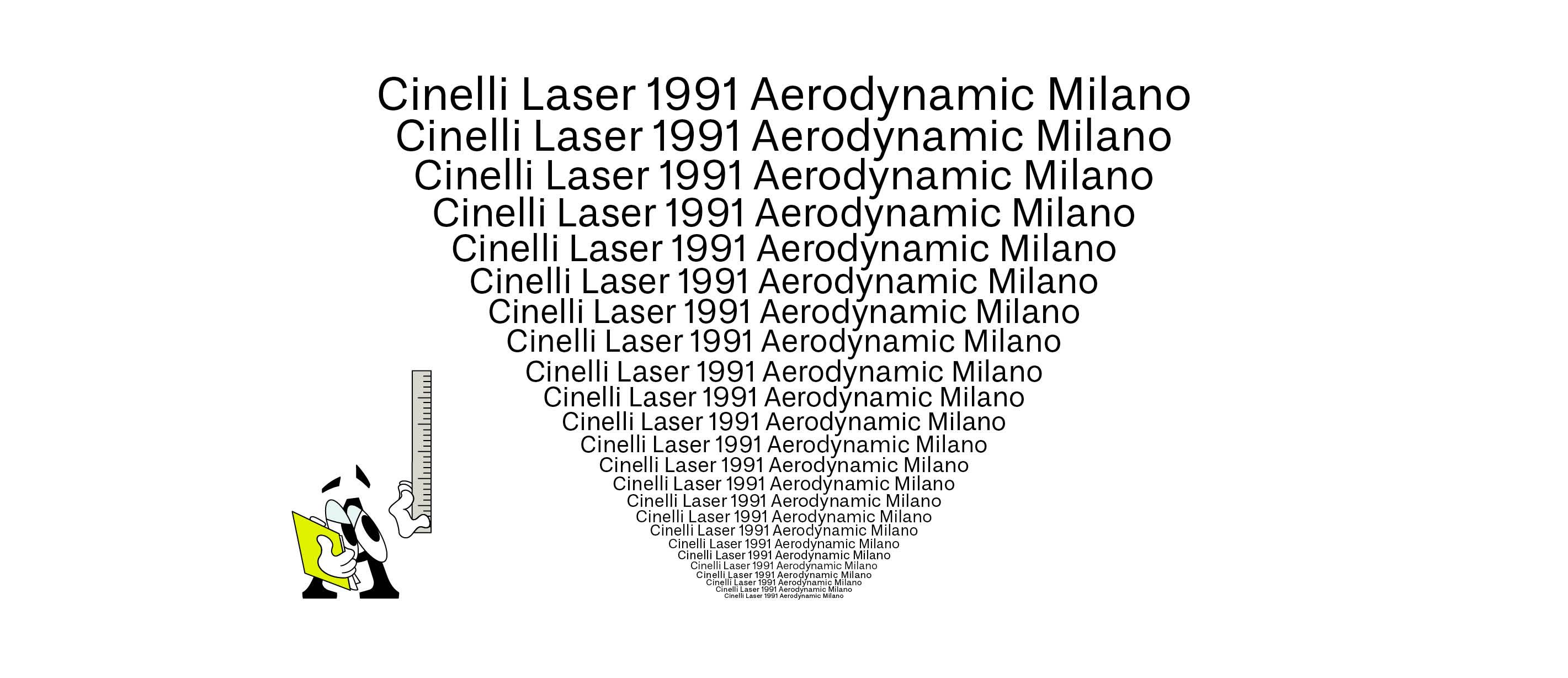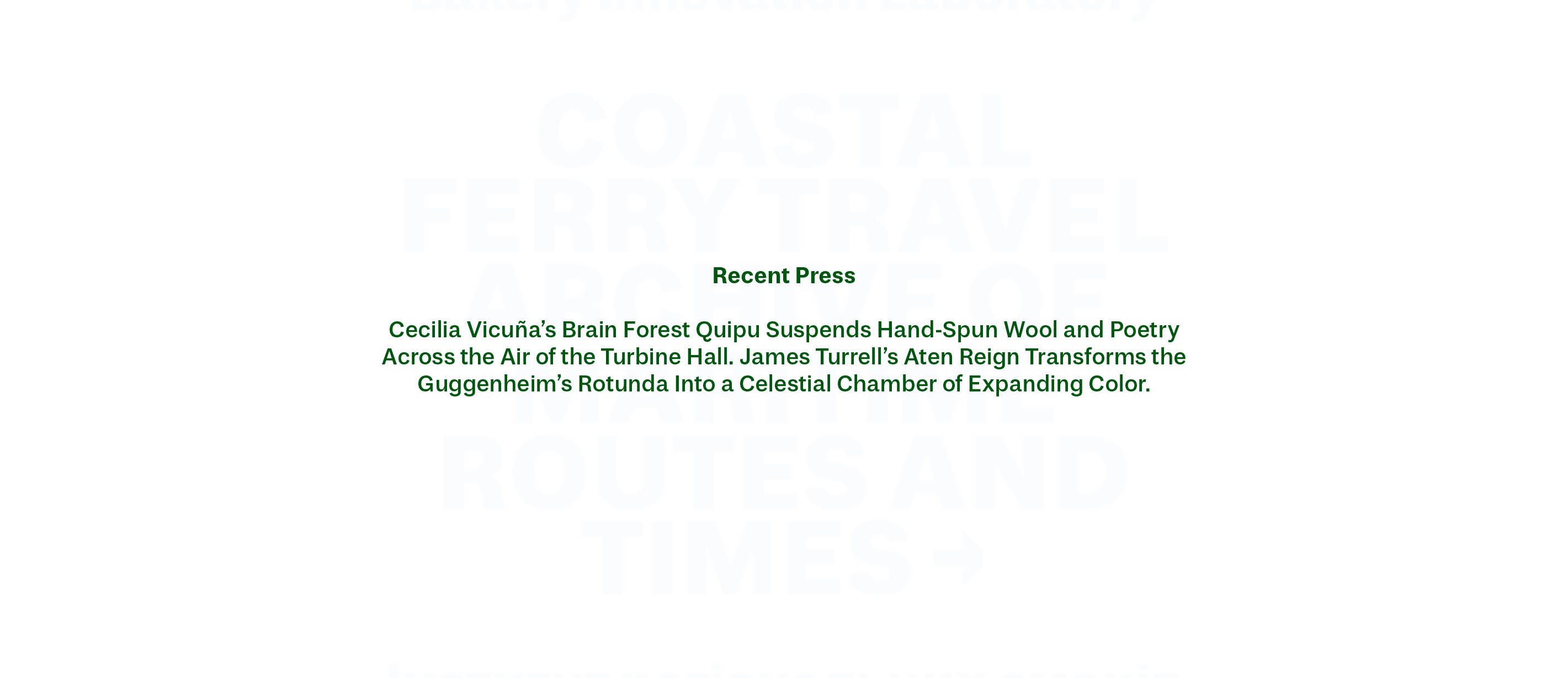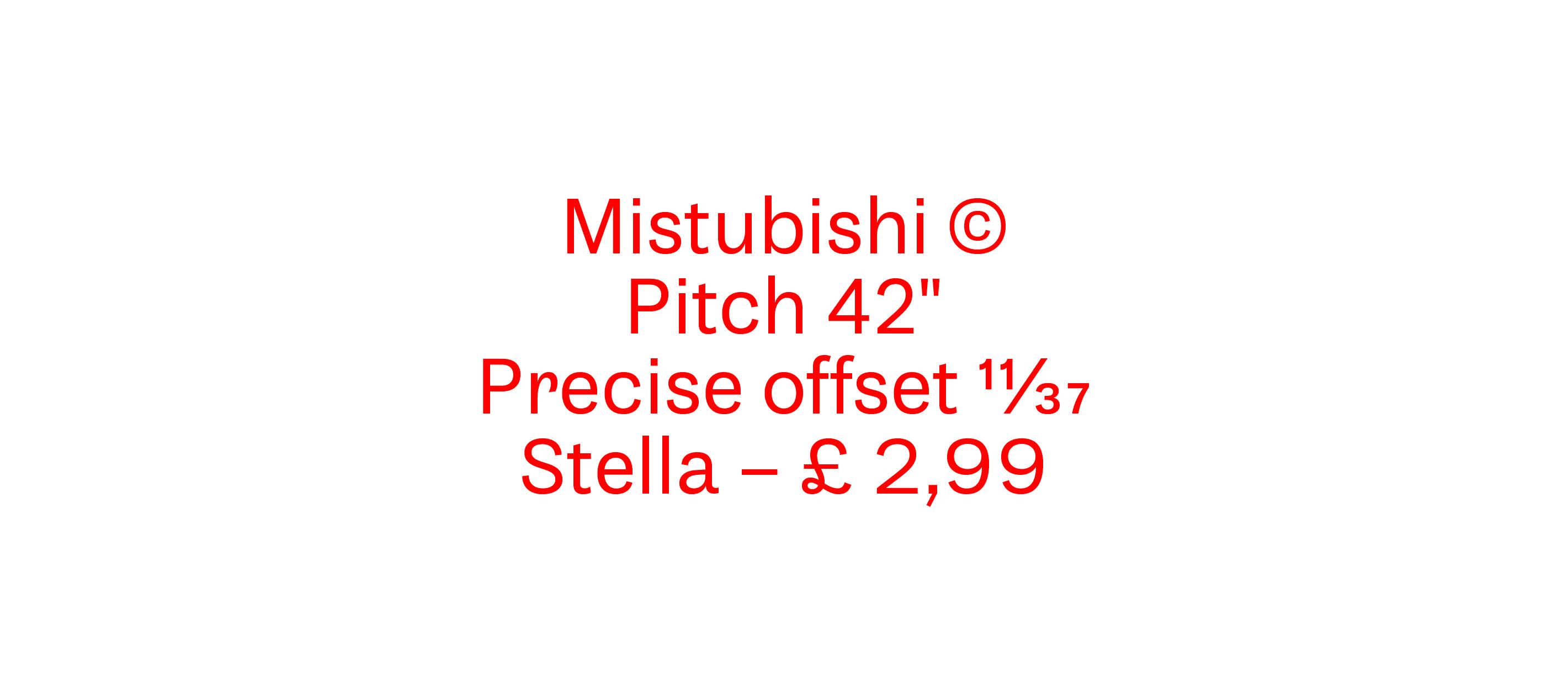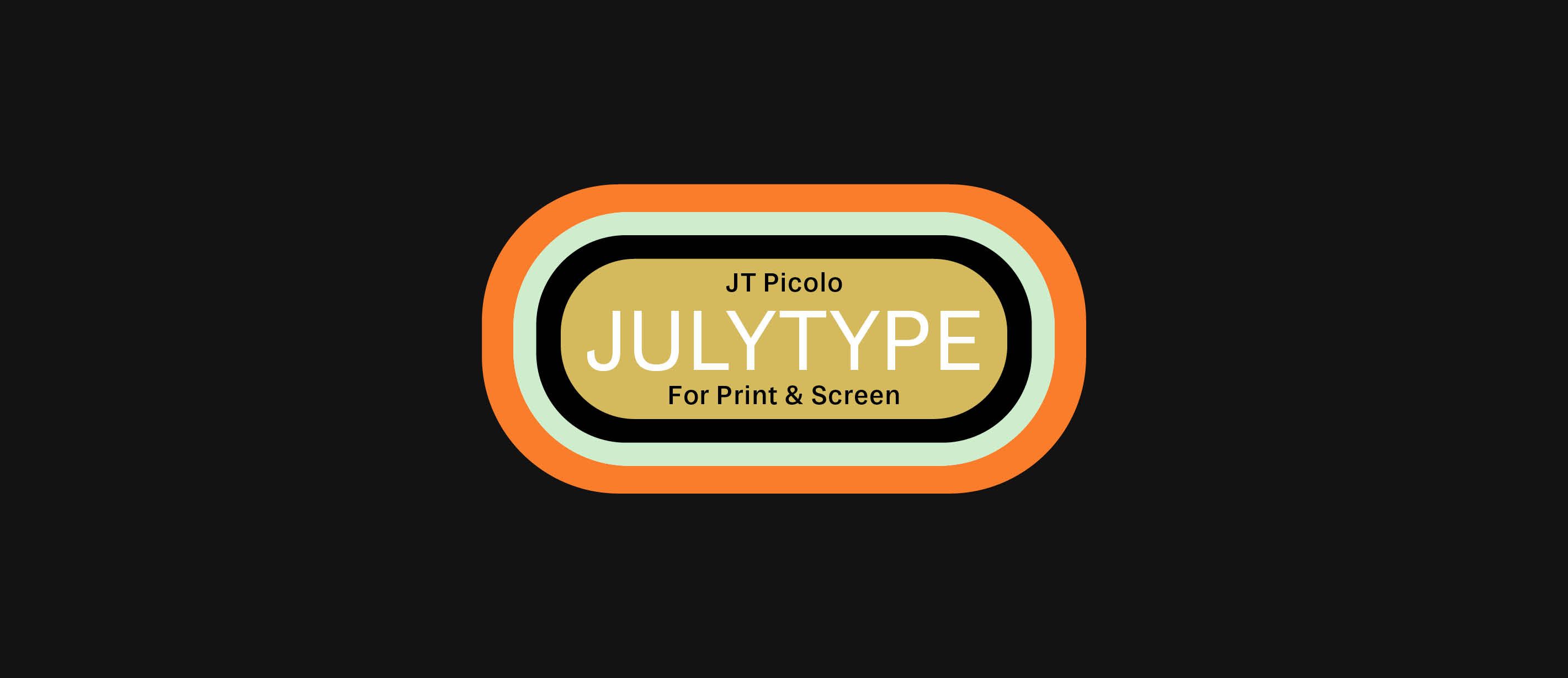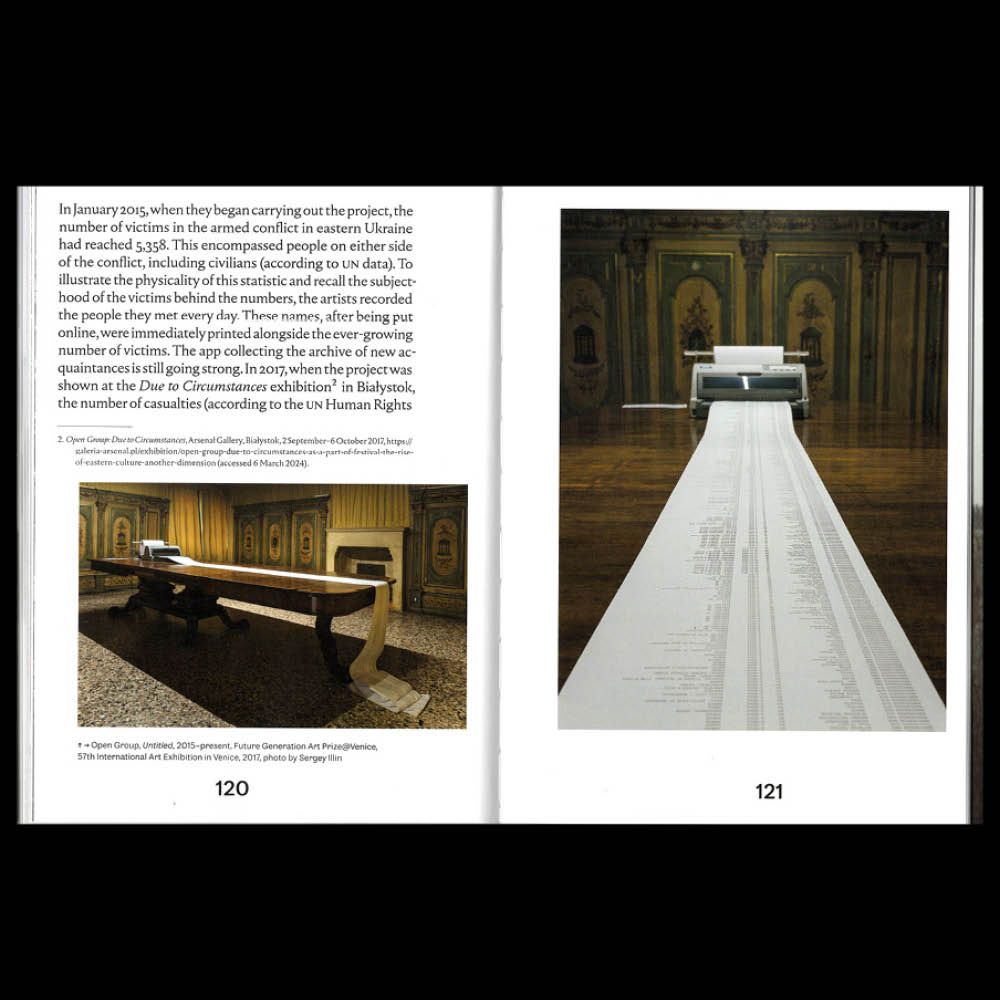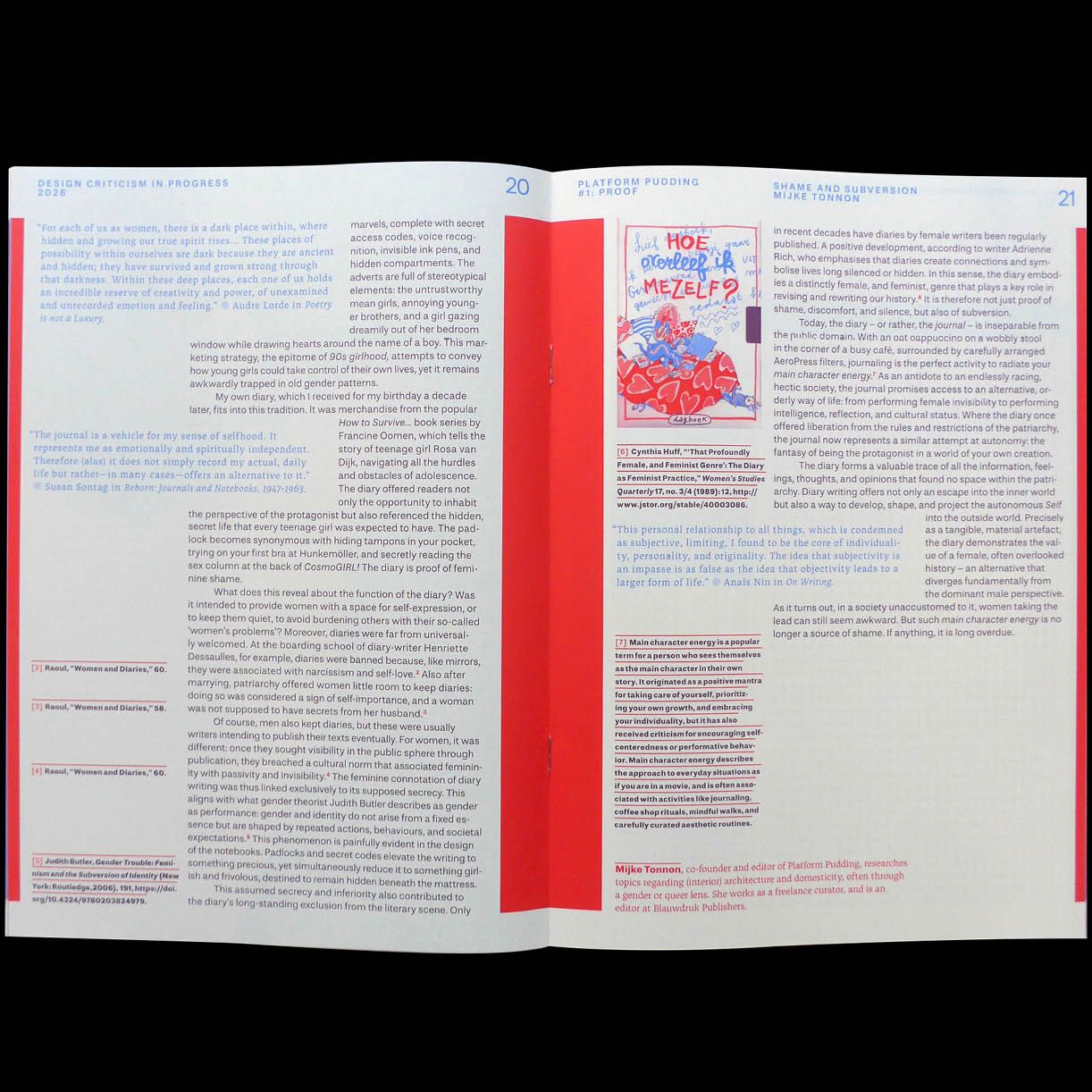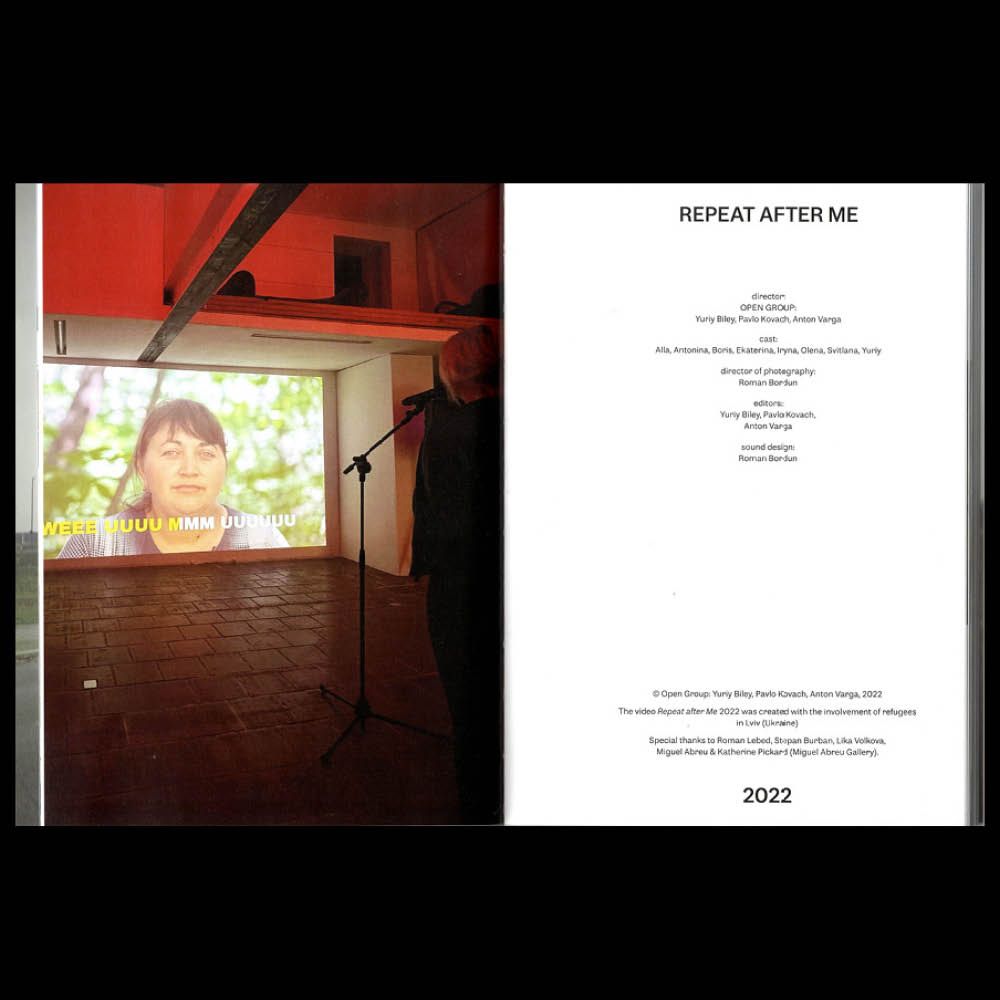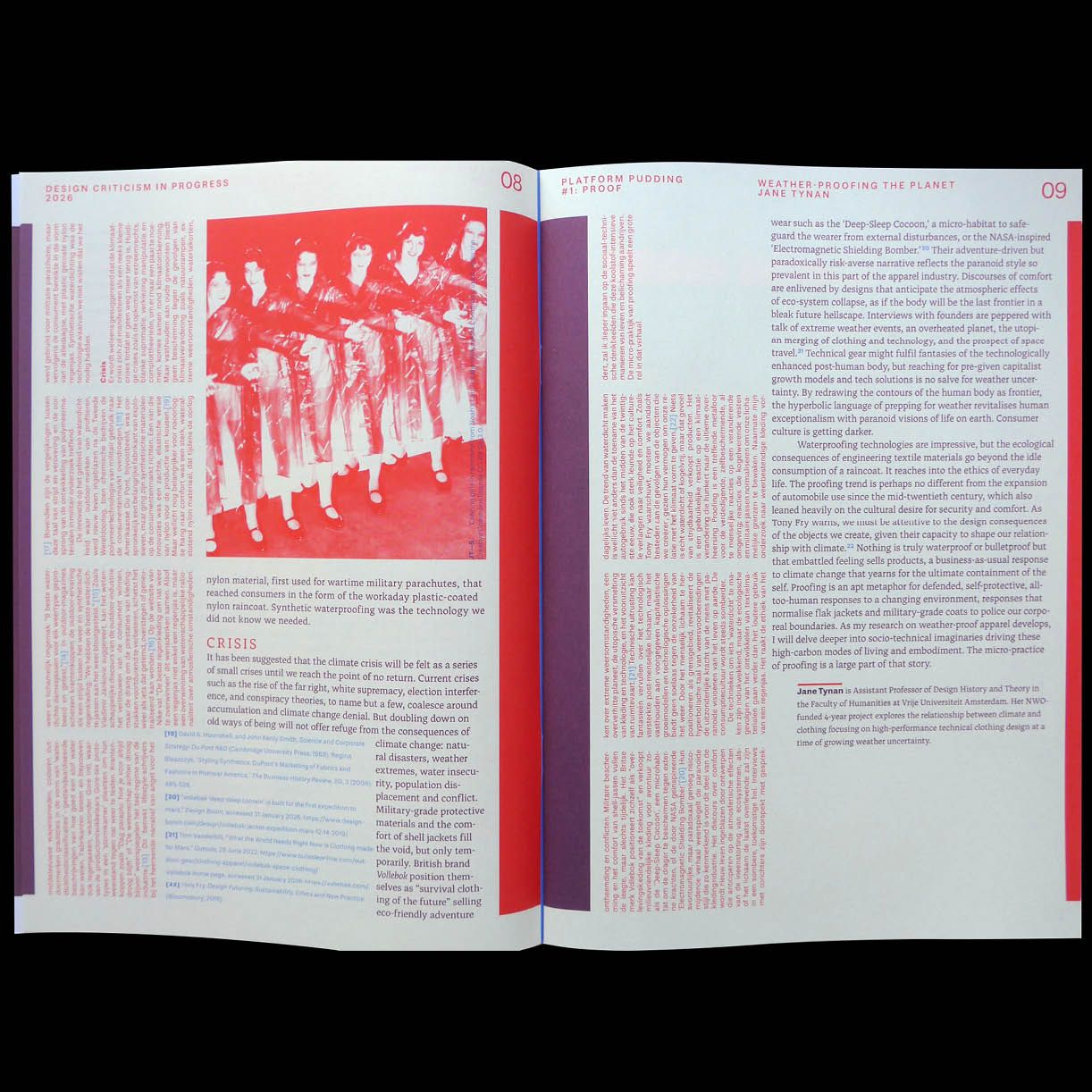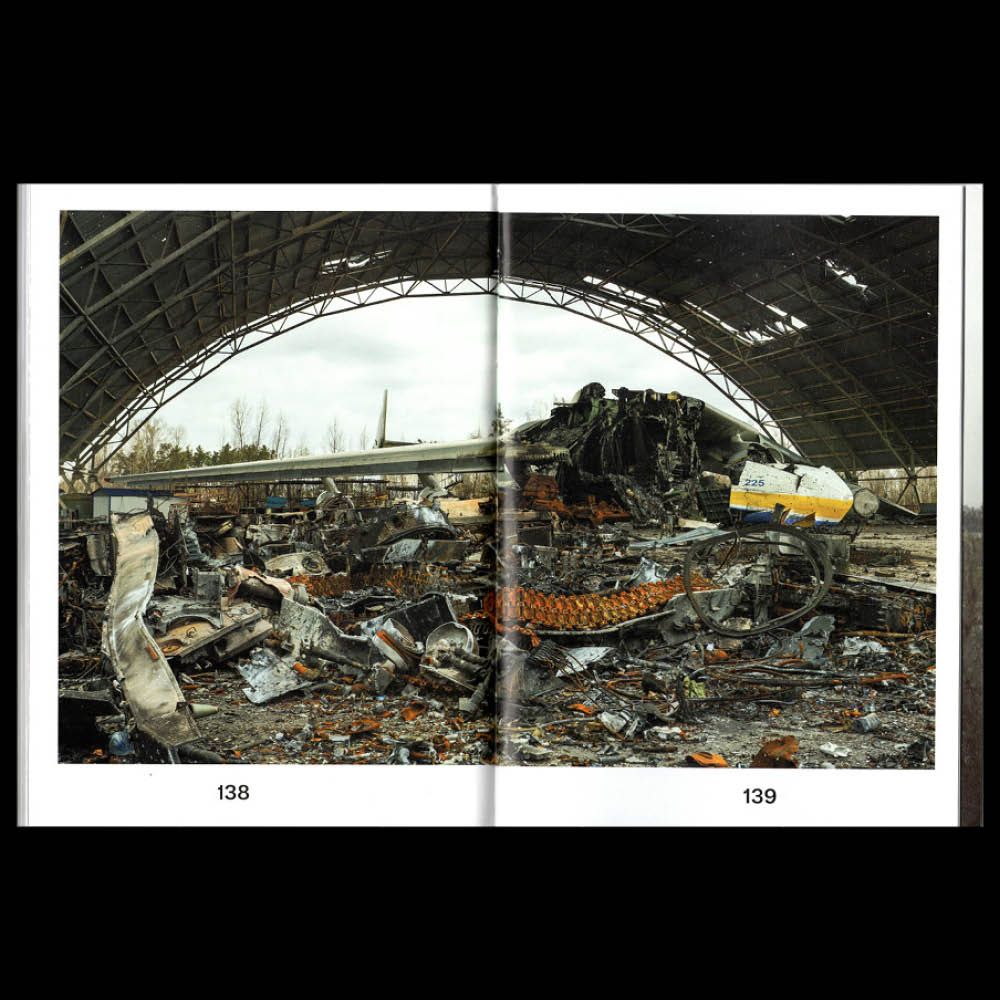
Repeat after Me II exhibition catalog, shown in the Polish Pavilion at the 60th International Art Exhibition, Venice Biennale in 2024. Design by Janek Bersz.
Platform Pudding Magazine by Kylièn Sarino Bergh
Poster for the exhibition by Fruzsina Kiss. Design by Stavros Gialamidis
Jt Picolo is a variable typeface that blends the elegance of 19th-century Grotesque typefaces with a contemporary touch. The research explored high-contrast Grotesque typefaces from the 19th century, with a focus on noteworthy examples like the Breede Grotesque from Van der Wiel & Hooijer te Arnhem in 1875 and its subsequent iteration by the Amsterdam-based type foundry, Tetterode. The design philosophy centers on blending historical references with contemporary solutions. For instance, in aspects such as letter proportions, including the height of the x-height, width, or terminal endings, we were curious about which references to retain or discard to transform Picolo into a dynamic and adaptable tool suitable for various applications. During the early stages of design, we retained numerous references to the sources.
Particularly, we cherished the lower-case double-story letters /g and /r, which stood out prominently. However, as these references proved most effective for display sizes, we moved historical references into alternates. If you desire a more playful version of Picolo, explore alternates in the OpenType features. Whether improving printed designs or fitting smoothly into digital spaces, it shows its practical strength and effectiveness in various design situations. The typeface extends its functionality by providing Cyrillic support, catering to a broader range of users. Simply put, Jt Picolo is a tribute to the timeless appeal of 19th-century Grotesque fonts, blending historical elegance with modern design needs. Its dedication to inclusivity is clear in its support for Cyrillic, making it a versatile and powerful tool for a global audience.